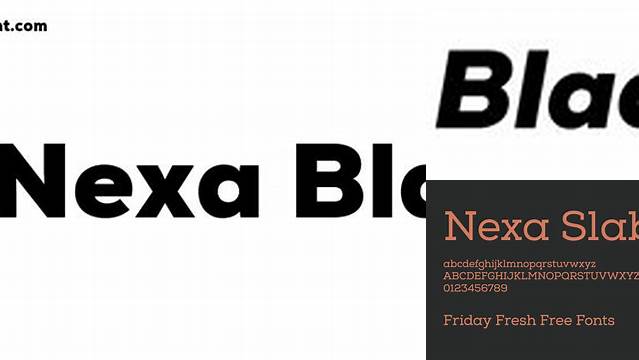
Hey guys! Are you on the hunt for a sleek and stylish font to jazz up your designs? Look no further! The Nexa Black Italic font is a fantastic choice, offering a modern and edgy aesthetic that’s perfect for a wide range of projects. Whether you're designing a logo, crafting eye-catching posters, or working on a website, this font can add that extra touch of professionalism and flair. But before you jump in, let’s dive deep into what makes Nexa Black Italic so special, where you can find it for free (yes, you read that right!), and how to use it effectively in your projects. So, buckle up, and let’s get started!
What is Nexa Black Italic Font?
Nexa Black Italic is a part of the broader Nexa font family, which is celebrated for its clean lines and contemporary feel. The “Black” weight gives it a bold, impactful presence, while the “Italic” styling adds a touch of dynamism and sophistication. This combination makes it incredibly versatile, fitting seamlessly into both headings and body text, depending on the overall design and context. This typeface is a go-to for designers aiming to convey a sense of modernity and strength. The italicized form gives it a flowing, almost handwritten feel, making it perfect for adding emphasis or a unique visual element to your design. You'll find it's a favourite among those in the creative industries for its readability and aesthetic appeal.
Why Choose Nexa Black Italic?
Choosing the right font is crucial, and Nexa Black Italic brings a lot to the table. Its bold weight ensures readability even at smaller sizes, while the italic slant adds a unique visual rhythm. This makes it stand out from more conventional fonts. The clean and geometric forms of Nexa Black Italic give it a professional and modern look, ideal for businesses wanting to project a cutting-edge image. The font's versatility shines through in various applications, from digital interfaces to print materials. It's a solid choice for designers who need a font that can perform well in a variety of contexts without losing its character. Plus, its availability (sometimes for free!) makes it an attractive option for those on a budget, balancing cost-effectiveness with high-quality design.
Using Nexa Black Italic in Graphic Design
When it comes to graphic design, Nexa Black Italic is a true workhorse. Its bold, italic style makes it fantastic for headlines and titles, where you need to grab attention. But don't think it's just for the big stuff! It works beautifully in shorter blocks of body text too, adding a touch of sophistication and modern flair. Consider using Nexa Black Italic for logos, posters, and website designs. Its clean lines and distinctive slant can make your text pop. Pair it with a lighter, simpler font for body text to create a visual hierarchy and ensure readability. Experiment with different sizes and weights to see how Nexa Black Italic can bring your designs to life. Whether you're working on a minimalist project or something more elaborate, this font can adapt and elevate your work.
Nexa Black Italic for Web Design
For web design, Nexa Black Italic can add a modern, dynamic touch to your site. It's especially effective for headings and call-to-action buttons, where you want to capture the visitor's eye. Using Nexa Black Italic can give your website a professional, polished feel, particularly when used sparingly and strategically. Think about employing it in your navigation menu or page titles to create a consistent and stylish look. Because it's a bolder font, it pairs well with simpler sans-serif fonts for body text, ensuring readability and balance. When implementing it on your website, ensure you optimize the font for web use. This may involve using web font formats like WOFF or WOFF2 to ensure fast loading times. Also, check how the font renders across different browsers and devices to maintain a consistent user experience. Nexa Black Italic can truly set your website apart if used thoughtfully.
Nexa Black Italic for Logo Design
Designing a logo? Nexa Black Italic is a stellar choice! Its bold and italicized form exudes confidence and style, making it perfect for brands that want to project a modern, dynamic image. This font can give your logo a unique edge, helping it stand out from the crowd. The sleek lines and strong presence of Nexa Black Italic work well in both minimalist and more complex logo designs. Consider how the italic slant can add a sense of movement or forward-thinking to your brand identity. When using Nexa Black Italic for a logo, think about the overall message you want to convey. Is it sophistication? Innovation? The font’s versatility allows it to communicate various brand personalities. To make your logo even more distinctive, you might consider customizing the font slightly, tweaking letterforms or adding unique elements. However, ensure any modifications maintain the font's readability and integrity. Nexa Black Italic can be the cornerstone of a memorable and impactful logo.
The Future of Nexa Black Italic
What does the future hold for Nexa Black Italic? With its enduring appeal and versatility, it’s likely to remain a popular choice among designers for years to come. As design trends evolve, Nexa Black Italic may find new applications and contexts, continuing to adapt and stay relevant. The trend towards bold, impactful typography suggests that this font's strong presence will continue to be valued. Additionally, its legibility and modern aesthetic make it well-suited for digital platforms, ensuring its continued use in web and app design. Whether it’s used in branding, advertising, or editorial design, Nexa Black Italic is poised to remain a key player in the world of typography. So, keep experimenting with it, and see where it takes your designs!